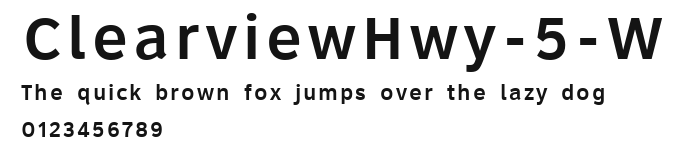
• Font Name: ClearviewHwy-5-W
• Font ID: TerminalDesign,Inc.: ClearviewHwy DFW-Five-W: 2002
• Full Font Name: ClearviewHwy-5-W
• Version: Version 4.0; 2002
• PostScript Name: ClearviewHwy-Five-W
• Character Count: 344
• Designer: James Montalbano, Donald Meeker, Chris O'Hara
• Manufacturer: Terminal Design, Inc.
• Description: ClearviewHwy DFW contains customized font metrics to support the requirements of sign making for the Dallas Fort Worth Airport
About ClearviewHwy-5-W.ttf
ClearviewHwy-5-W.ttf is a modern, elegant sans-serif font designed for ultimate readability and visual harmony. Perfect for branding, headlines, web design, and print materials.